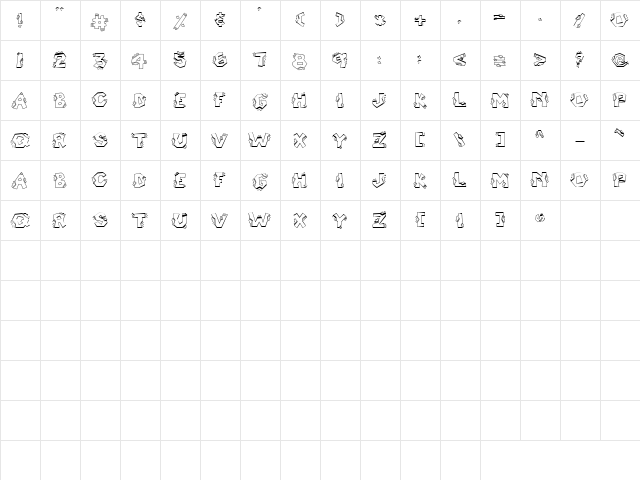
CK Spiky Block Regular
Design Context for CK Spiky Block Typeface
CK Spiky Block is a composed and adaptable typeface that performs quietly and consistently across a wide range of design contexts.